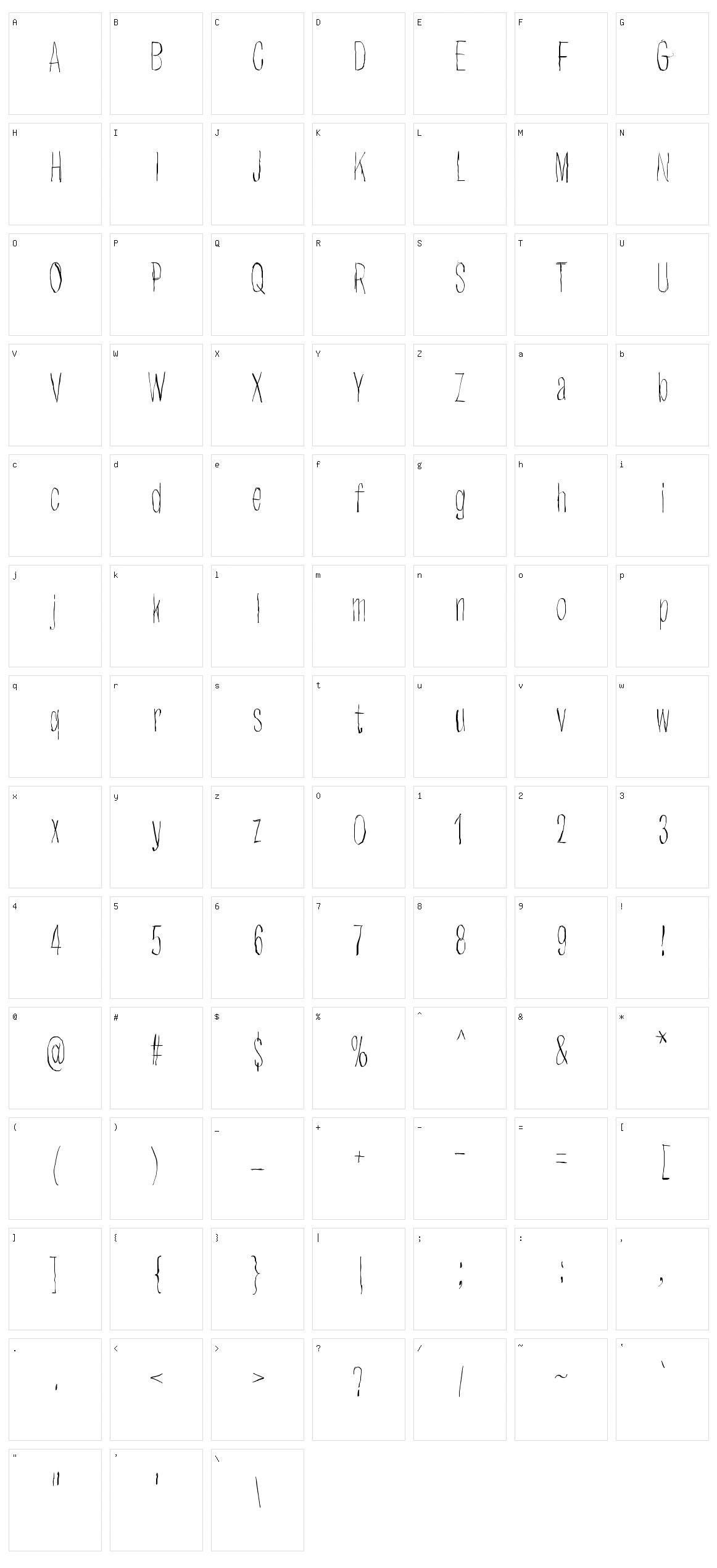
The free font Strawobbly is carefully designed by junkohanhero, showcasing a thoughtful balance of creativity and usability and falls under the Script font style. When you download the ZIP file, it contains only 1164.25 KB of font files, making it lightweight and quick to download. Please review the license details below to understand permitted usage and distribution rights. If license information is not available, we recommend using this font for personal projects only or contacting the author directly for commercial usage permissions.